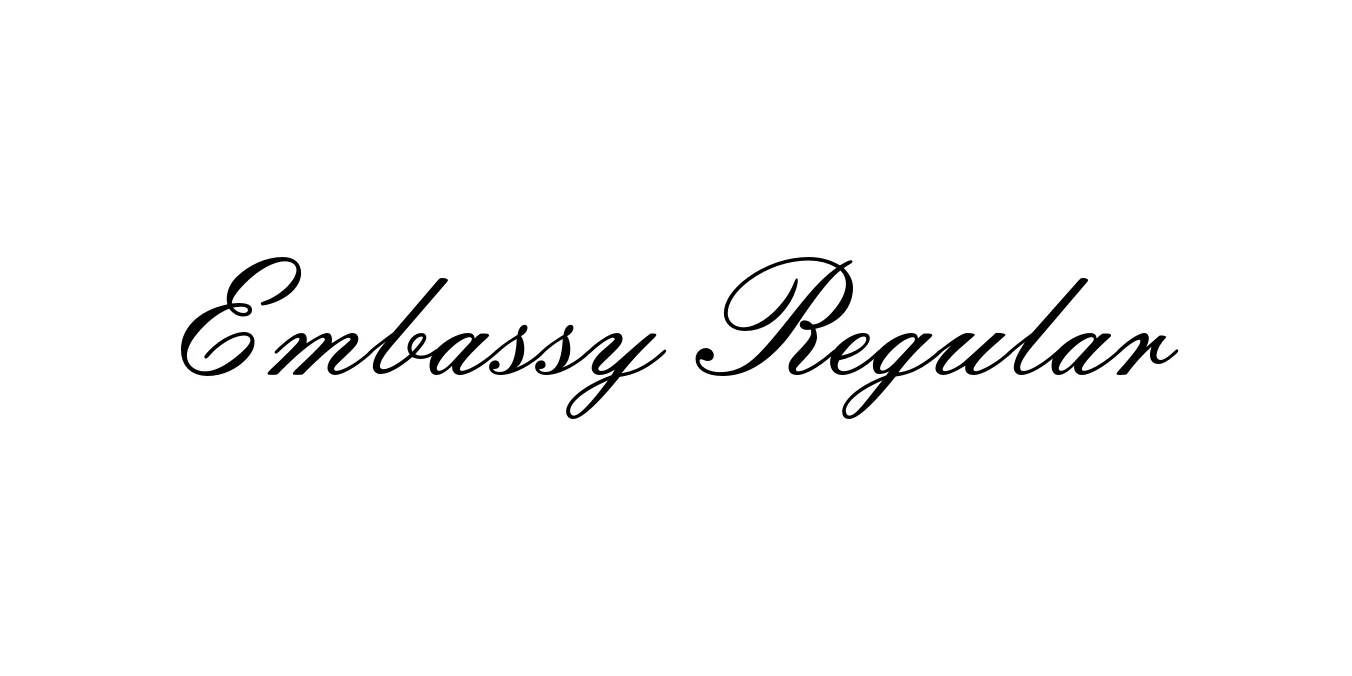
Embassy Regular
Designed by Morris Fuller Benton
| Similar Fonts | Snell Roundhand, Shelley Script, Edwardian Script, Kuenstler Script |
Embassy Regular is a sophisticated and elegant script typeface originally designed by the prolific typographer Morris Fuller Benton in 1930 for the American Type Founders (ATF). It represents the height of formal calligraphy from the early 20th century, featuring graceful, flowing strokes that mimic high-end copperplate engraving. The typeface is known for its delicate balance of high contrast between thick and thin lines, which conveys a sense of prestige, tradition, and timeless sophistication.
Historically, this font has been a staple for formal social stationery, wedding invitations, and official announcements. Its distinctive loops and refined connections between characters provide a luxurious aesthetic that remains popular in modern digital design. Whether used for high-end branding, decorative headings, or ceremonial documents, Embassy Regular provides an air of traditional elegance that is difficult to replicate with more contemporary script fonts.
Embassy Regular Best Uses
Perfect for formal wedding invitations, RSVP cards, and save-the-date announcements.
Excellent for high-end logos, premium cosmetic packaging, and jewelry brand identities.
Ideal for diplomas, formal awards, and official certificates of appreciation.
Suited for black-tie gala announcements and upscale dinner party invitations.